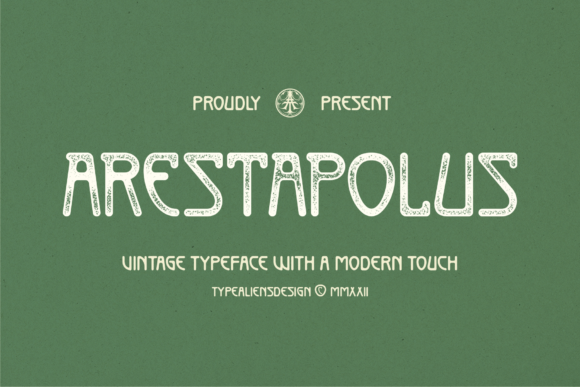
The Hunt for the Perfect Font: Discovering Arestapolus
I’ll never forget the frustration of scrolling through font after font, searching for the perfect one to bring my design to life. It was for a vintage-themed project, and I wanted something that would transport my audience back in time, but with a modern twist. That’s when I stumbled upon Arestapolus, a hidden gem that has since become a staple in my design toolkit.
What is Arestapolus?
Arestapolus is a unique vintage font with a slightly modern style, primarily a sans serif font with rounded corners. Its modern touch makes it versatile enough to be used for both vintage and modern designs, or even short texts. This all-caps font features a lowercase that’s slightly lower than the uppercase, giving it a distinctive character.
• ✨ Unique blend of vintage and modern styles
• ✅ Easy to read, even at smaller sizes
• ✨ Versatile and can be used for a variety of design projects
• ✅ Simple yet nuanced, perfect for artistic designs
While Arestapolus is an excellent font, it’s not without its quirks. For instance, ⚠️ its all-caps design can make longer texts a bit monotonous to read. Additionally, 🤔 the font’s uniqueness might not make it the best fit for very formal or traditional designs.
One of the exciting aspects of Arestapolus is its support for OpenType features. While it’s primarily an all-caps font, exploring the glyphs panel in compatible software like Adobe Photoshop or Illustrator can reveal additional design elements. These can add variety to your text, making it more dynamic and engaging.
The Designer Inspiration Behind Arestapolus
Arestapolus was inspired by the classic typography of the early 20th century, with a modern twist to make it relevant today. Its designer sought to create a font that would evoke a sense of nostalgia while still feeling fresh and contemporary.
Q: Is Arestapolus suitable for body text?
A: While Arestapolus is beautiful, its uniqueness and all-caps design make it more suited for headings or short texts. For longer body texts, a more traditional font might be more readable.
Q: How does Arestapolus compare to other vintage fonts?
A: Arestapolus stands out due to its modern touch and rounded corners, making it more versatile than some traditional vintage fonts. It’s perfect for designers looking for a unique yet nostalgic feel.